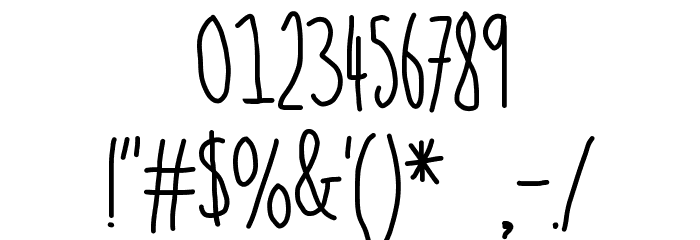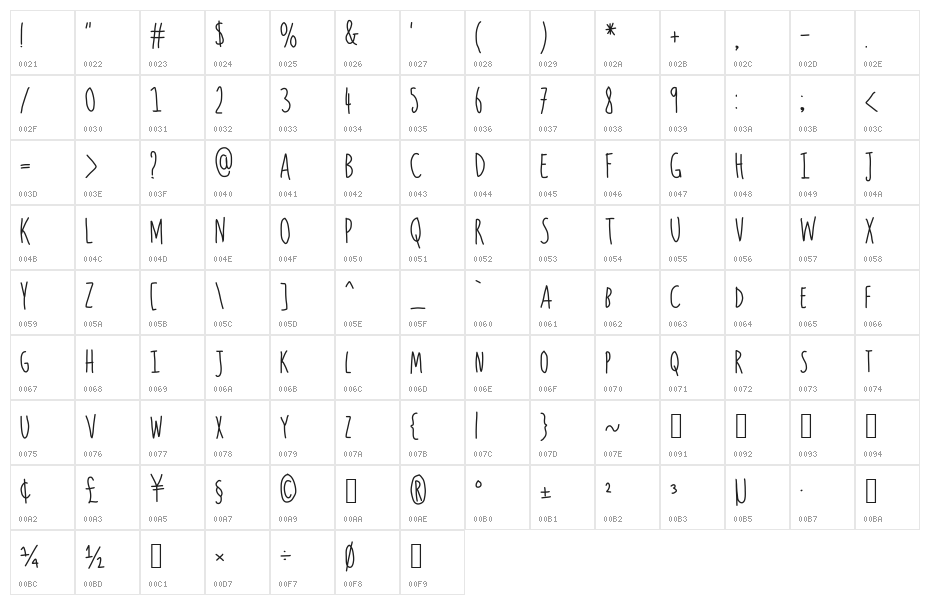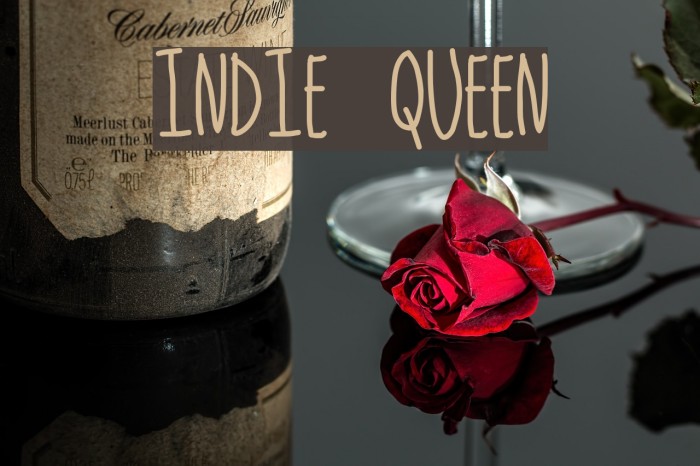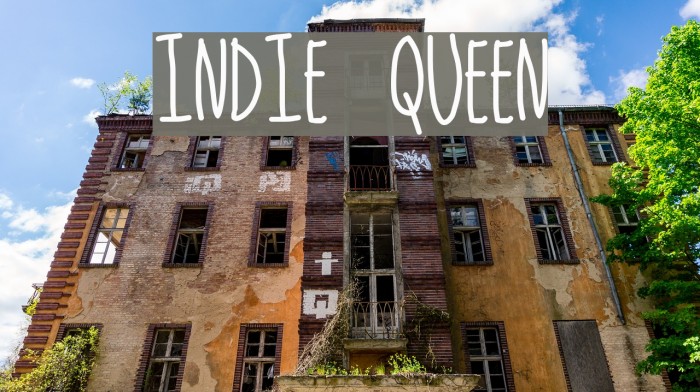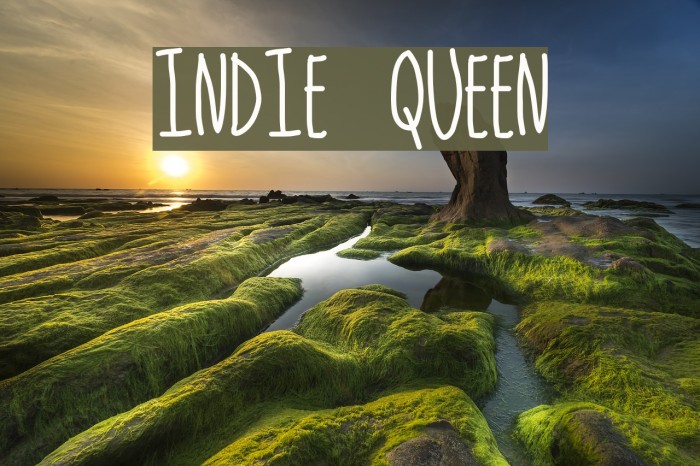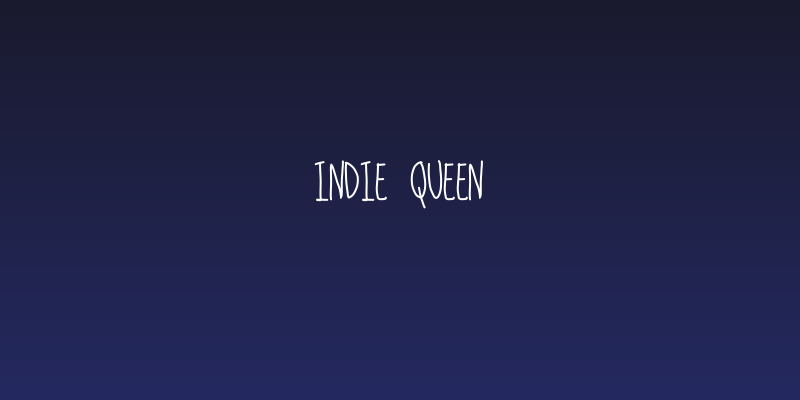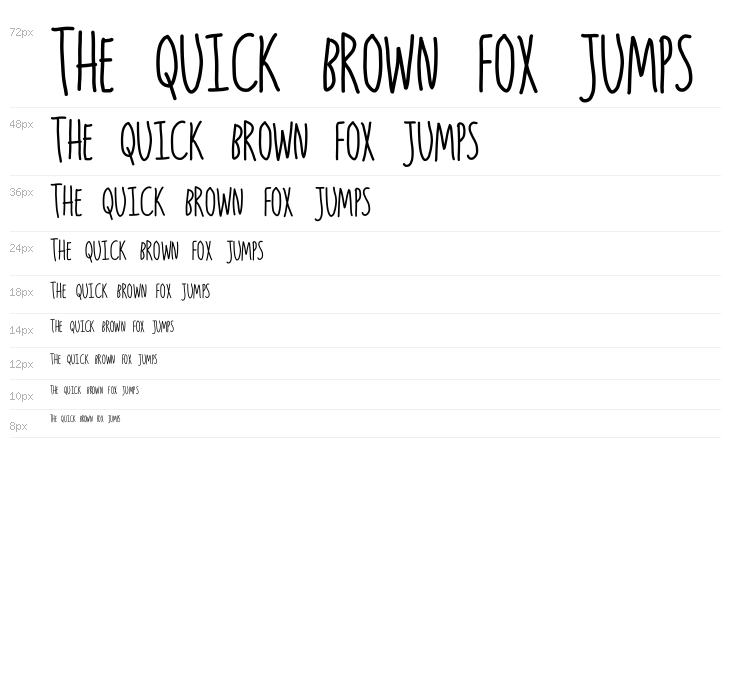
indie queen Font
indie queen Description
This font features a playful and casual handwritten style, characterized by its tall, narrow letters and slightly irregular strokes. The uppercase and lowercase letters maintain a consistent height, giving it a uniform appearance. The numbers and special characters follow the same whimsical style, making it suitable for informal and creative projects. The strokes are smooth and slightly rounded, adding to its approachable and friendly look. This font is ideal for projects that require a personal touch, such as greeting cards, invitations, or social media graphics.
| Use Case | Headlines, Logos, Informal text |
| Proposed Projects | Greeting cards, invitations, social media graphics, children's books, and casual branding. |